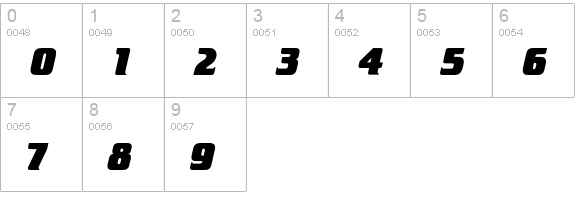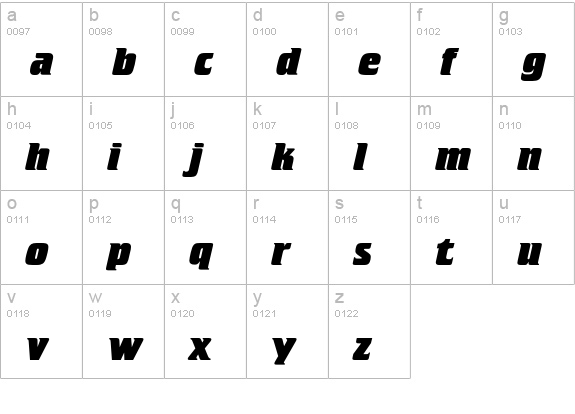
CrilleeEF-ExtraBoldItalic Font Details
CrilleeEF-ExtraBoldItalic is a striking and bold font that exudes a sense of elegance and sophistication. With its strong and slanted characters, this font is perfect for making a statement in your designs. The italicized style adds a touch of flair and drama, making it ideal for headings, titles, and other prominent text elements. What sets CrilleeEF-ExtraBoldItalic apart is its versatility and readability. Whether used in print or digital media, this font ensures that your message is conveyed clearly and effectively. Its distinct design captures attention and commands presence, making it a standout choice for any creative project. Best of all, CrilleeEF-ExtraBoldItalic is available for free download at FontsMarket.com. This means you can access this high-quality font without any cost, making it a valuable addition to your font collection. Don't miss out on the opportunity to enhance your designs with the bold and stylish CrilleeEF-ExtraBoldItalic font today!